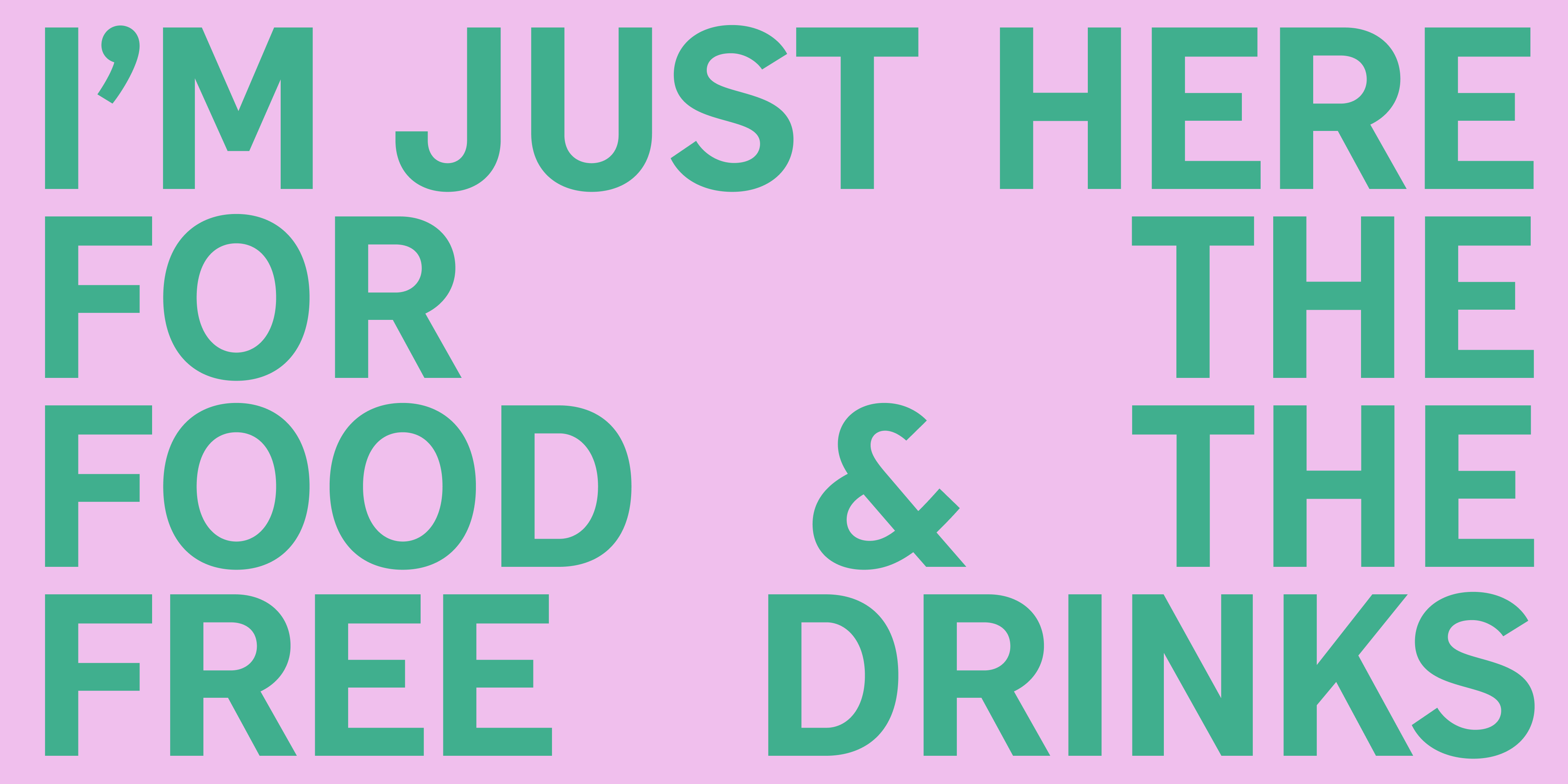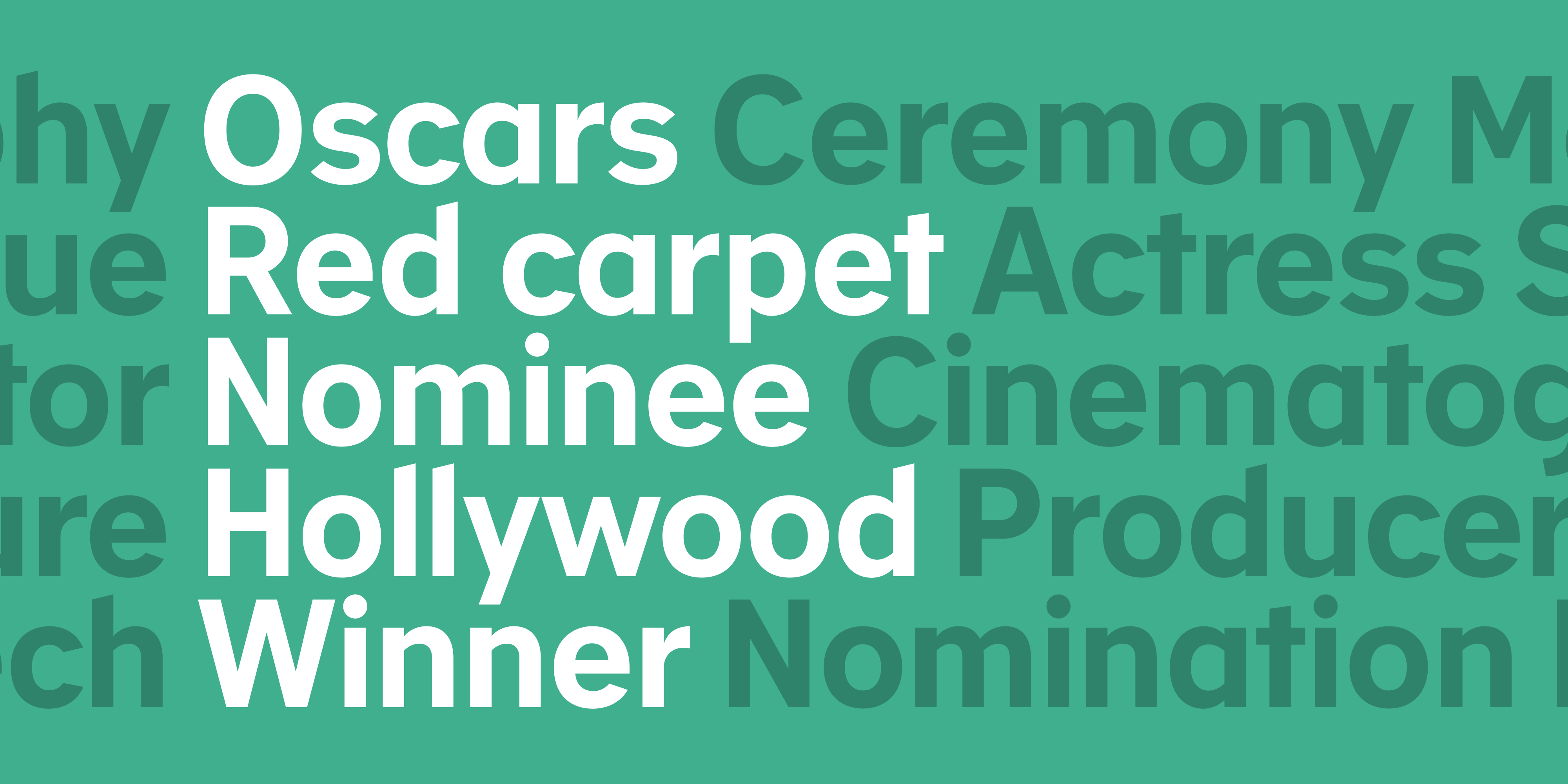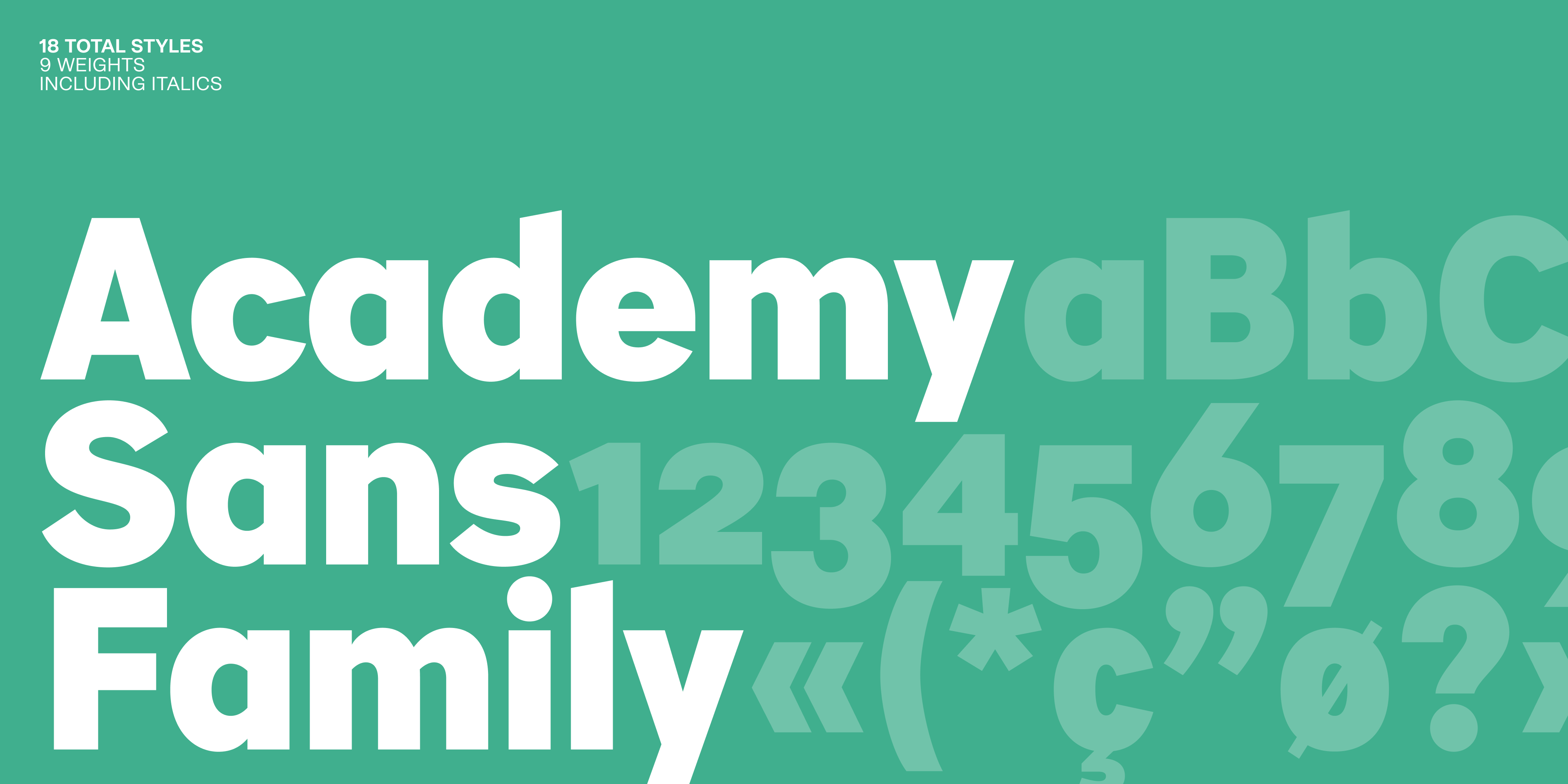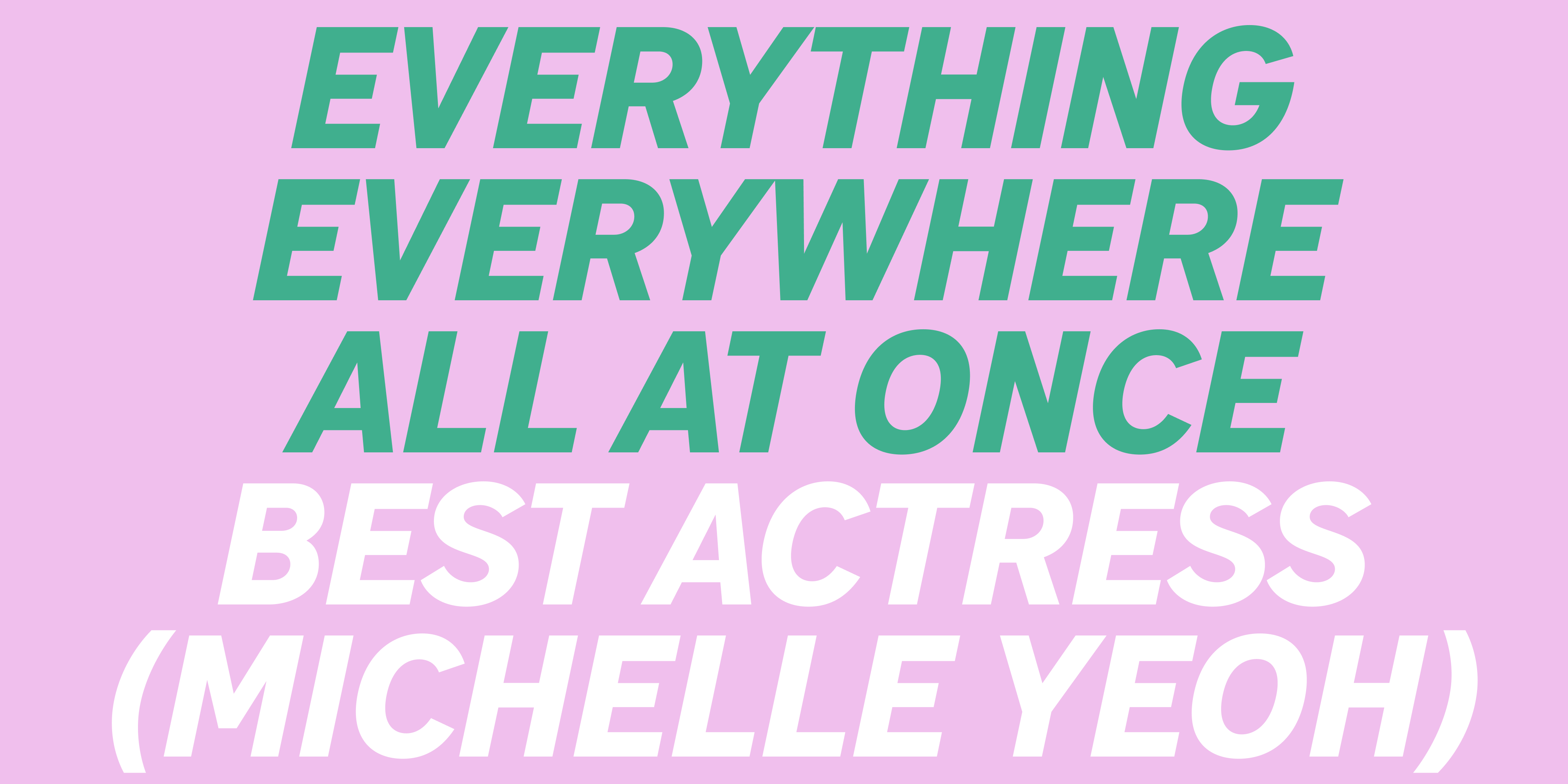
Academy Sans is a multi-family typeface that comes in a serif and stencil style, giving it a variety of expressions. With its condensed nature and open, clean look, Academy Sans is a perfect type for newspaper and magazine publications.